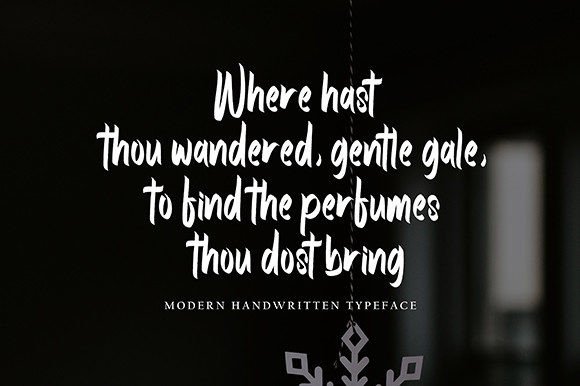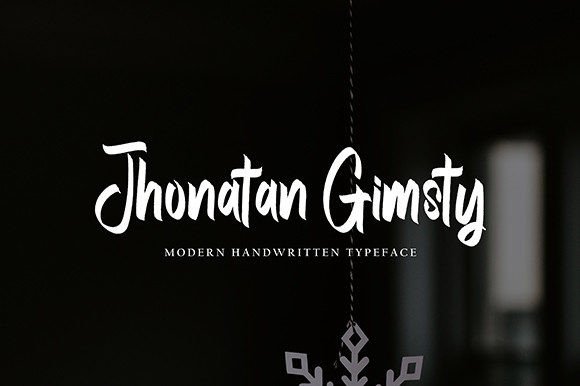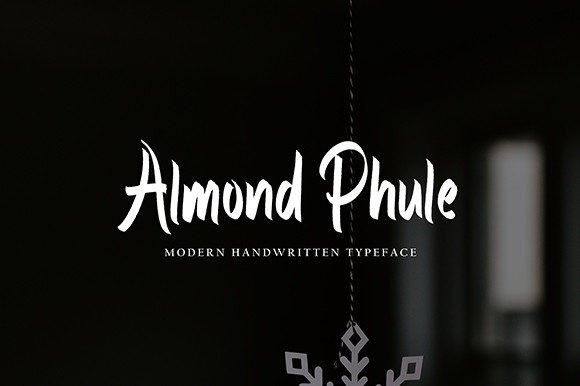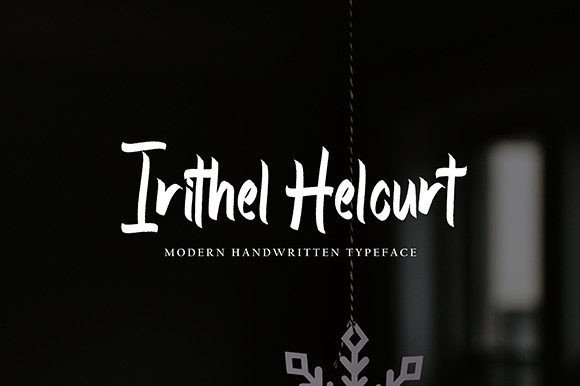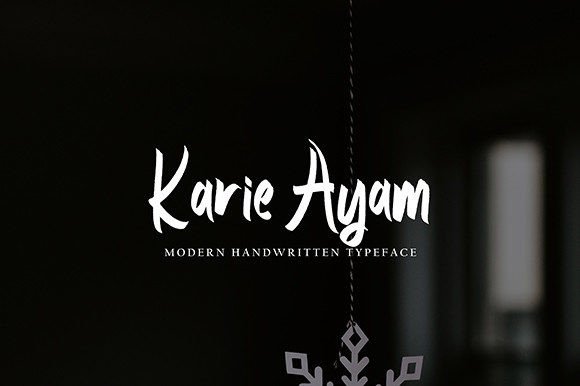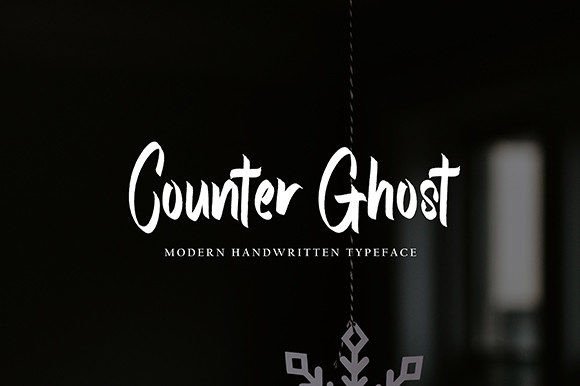
Adding a Touch of Trendiness to Your Designs
Have you ever been stuck in a creative rut, struggling to find the perfect font to elevate your design? We’ve all been there. But what if you stumbled upon a font that effortlessly combines modernity with a touch of personality?
Enter Bottibe Font, a bold and modern handwritten brush font designed to bring a contemporary accent to your designs. This versatile typeface is perfect for adding a touch of trendiness to your branding, social media graphics, or advertising materials.
For designers, Bottibe Font is a valuable addition to their toolkit. Its unique blend of modernity and personality makes it an excellent choice for projects that require a stylish and eye-catching font. Whether you’re working on a personal or professional project, Bottibe Font is sure to inspire your creativity and help you stand out from the crowd.
Bottibe Font Key Features
- Character Count: The font includes 600+ glyphs, providing extensive language support and a wide range of characters for various applications.
- Unique Characteristics: Bottibe Font features a unique blend of modern and traditional elements, with a distinctive flair that sets it apart from other sans-serif fonts.
Bottibe Font Review
As a designer, I was excited to dive into the Bottibe font and see what it had to offer. Here’s my honest review:
- The Bottibe font has a unique, modern aesthetic that’s perfect for contemporary designs.
- The font is highly customizable, with a range of weights and styles to choose from.
- The font is highly legible, even at small sizes, making it perfect for body text.
- The font has a wide range of languages supported, making it a great choice for multilingual designs.
- The font can feel a bit generic at times, lacking the personality of some other fonts.
- The font may not be the best choice for more traditional or classic designs.
- The font can be a bit overused in some design communities, which may affect its impact.
Overall, I think the Bottibe font is a solid choice for designers looking for a modern, customizable font. While it may have some limitations, its unique aesthetic and high legibility make it a great addition to any design toolbox.
The Bottibe Font is perfect for:
- Creative projects, such as posters, flyers, and brochures
- Brand identities, including logos and business cards
- Editorial content, such as articles and blog posts